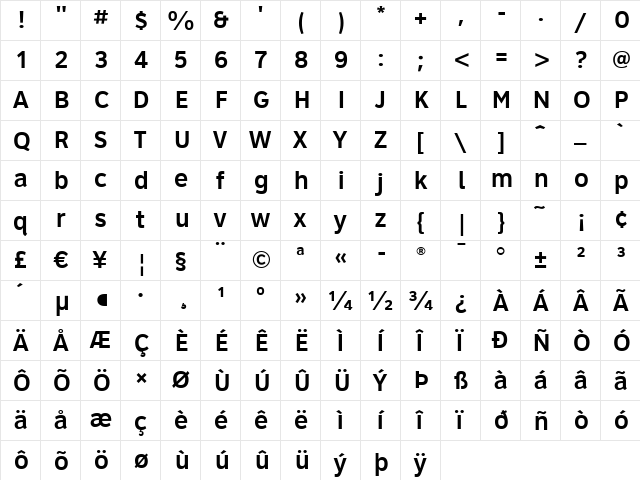
ClearviewHwy-5-W-R Regular
| Foundry | Terminal Design, Inc. |
| Designer | James Montalbano, Donald Meeker, Chris O'Hara |
Design Context for ClearviewHwy-5-W-R Typeface
ClearviewHwy-5-W-R takes a measured approach to typography — its balanced proportions and neutral character make it a reliable workhorse for both digital and print work.